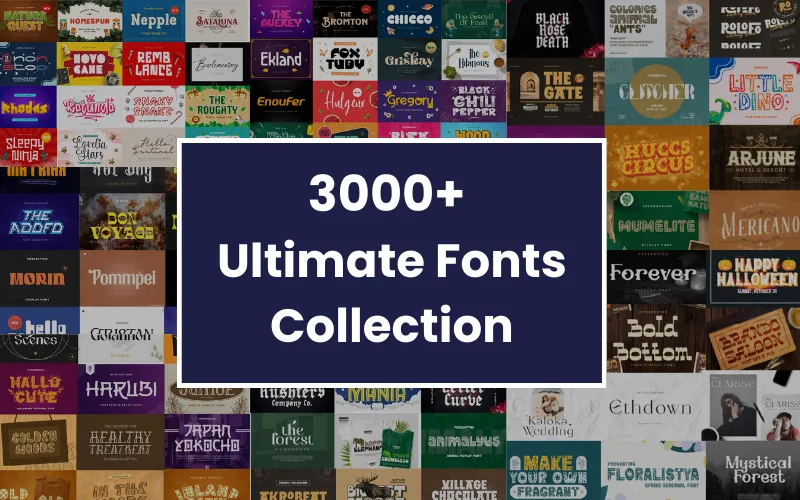
Bring a professional edge to your creative projects and refine your visual identity with the 2400+ Ultimate Fonts Bundle — a carefully curated collection of wedding, handwritten, calligraphy, script, and cursive fonts. All fonts are provided in OTF, TTF, WOFF and WOFF2 formats and include alternates, ligatures, sweeps and extra glyphs so you can customize typography for any mood or project.
- 2400+ fonts (collection of modern, classic and decorative families)
- Alternates, ligatures, sweeps & glyphs (special characters included)
Font packages in this collection (selected list):
- Premium Grotesk Family Fonts
- Fantastic Fonts Bundle
- Elegant Fonts
- Futuristic Fonts
- Game Fonts
- Magic / Fantasy Fonts
- Modern Fonts (including Modern Display & Moderns 2)
- Monster Fonts
- Popular & Premium Fonts (including Premium 2)
- Script Fonts
- Serif Display Fonts
- Sports Fonts
- Trendy Fonts Bundle
Key features
- 2400+ professional font files covering Script, Display, Calligraphy & Sans-Serif categories
- Styles included: Comic, Texture, Vintage & Retro
- Includes alternatives, ligatures, sweeps and glyphs for advanced typographic control
- Font families: 9+ included